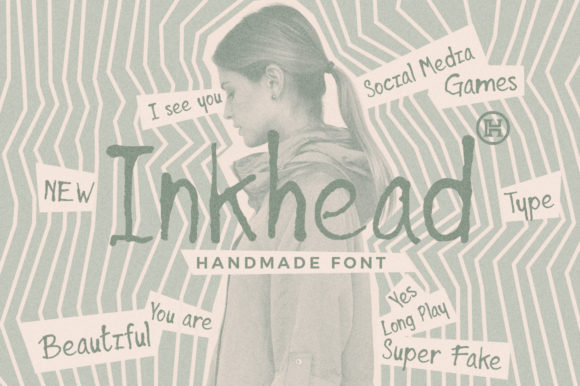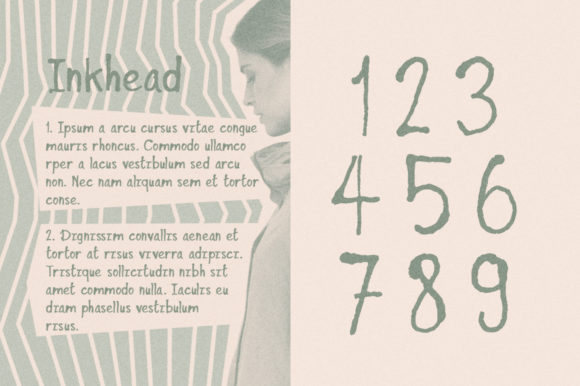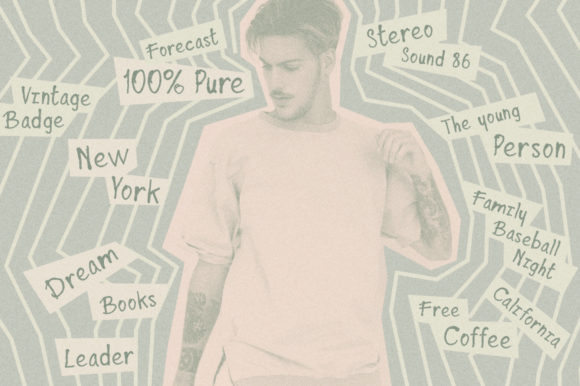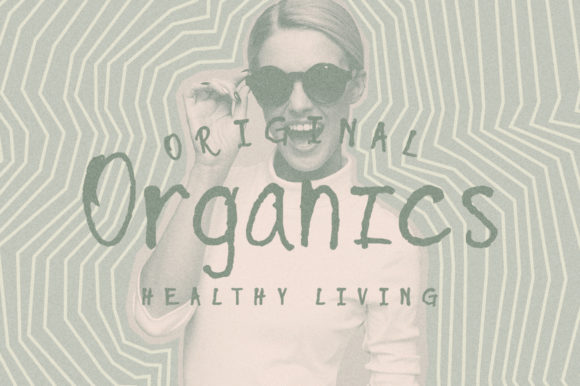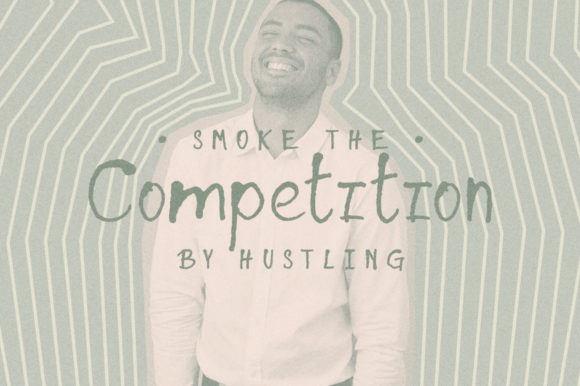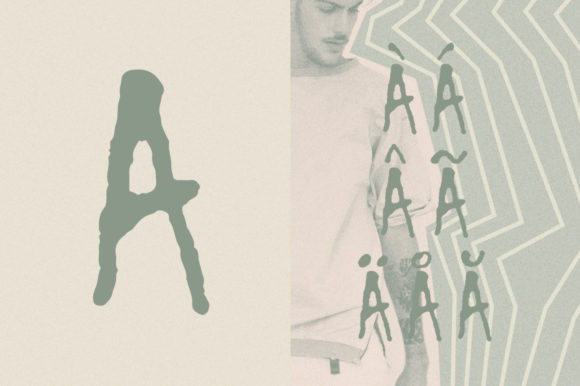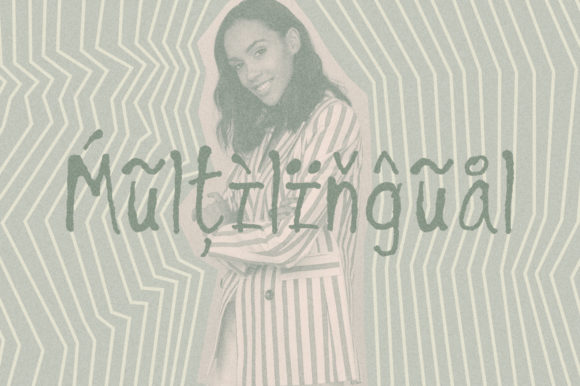
HomeScript FontsInkhead Font Script Fonts Inkhead Font FacebookXPinterestWhatsApp Inkhead Font Poster 2 Inkhead Font Poster 3 Inkhead Font Poster 4 Inkhead Font Poster 5 Inkhead Font Poster 6 Inkhead Font Poster 7 About Inkhead Font Inkhead is a fun handwritten font with an organic feel. It will add a personal touch to any creative project. DOWNLOAD NOW People also explored Unicorns Are Awesome Font Swirl Floral Monogram Font Big Fat Gothic Font Great Greetings Font Bold Wroc Special Font West Font Animal Kingdom Font Hazelnut Spread Font Bird and Roses Monogram Font 335 0 TagsInkhead Font Previous articleMythological FontNext articleMother Day Script Font LEAVE A REPLY Cancel reply Comment: Please enter your comment! Name:* Please enter your name here Email:* You have entered an incorrect email address! Please enter your email address here Website: Save my name, email, and website in this browser for the next time I comment. Personal Use Free Wondery Personal Use Free Read more about this font Pan Pizza Personal Use Free Read more about this font Ennobled Pet Personal Use Free Read more about this font Soria Personal Use Free Read more about this font BLOG Top 7 Google Fonts Alternatives for Faster and Privacy-Friendly Web Design (2025) Top 7 Google Fonts Alternatives for Faster and Privacy-Friendly Web Design (2025) When it comes to web typography, Google Fonts has long been the go-to... 5 Fonts That Will Dominate Design Trends in 2026 How to Cut Any Font on Cricut: Convert a Font to SVG (Free) Transform Your Website: Elevate Your Typography with 7 Best Web Font Generators